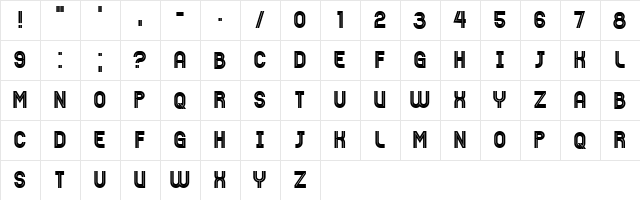
Bernard Regular Font Preview
Bernard Regular
Bernard Regular Font Details
Design Context for Bernard Typeface
Bernard offers clean, dependable letterforms without strong stylistic allegiance, making it a practical choice for designers who need flexibility.
Pro Tip: Pair Bernard with a font of contrasting weight or personality to build a more expressive typographic hierarchy.